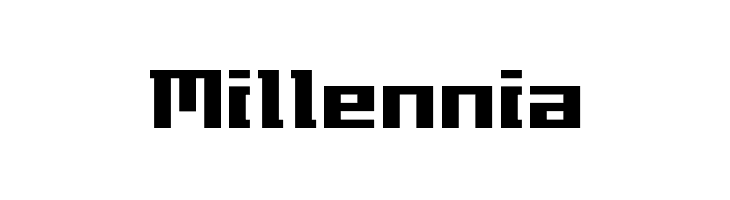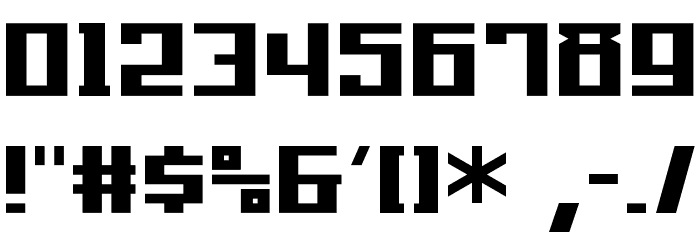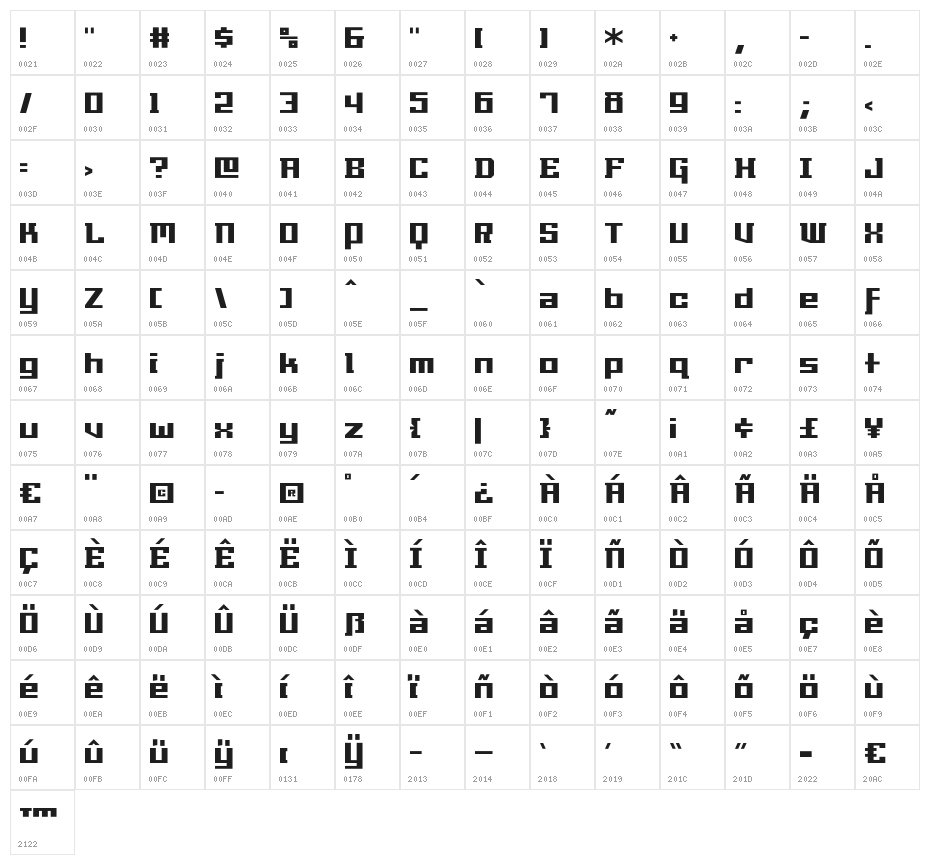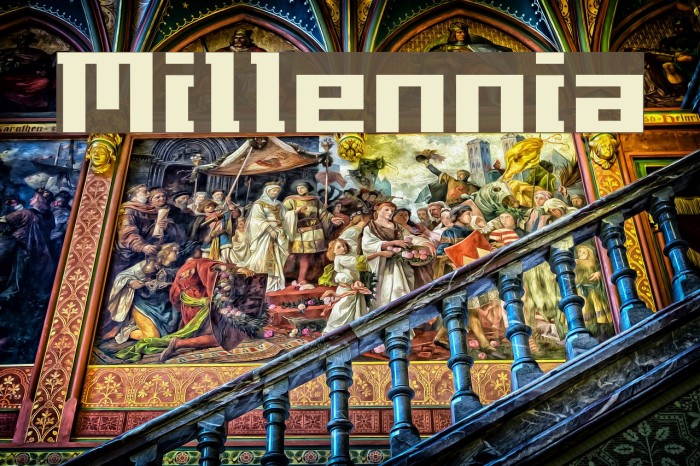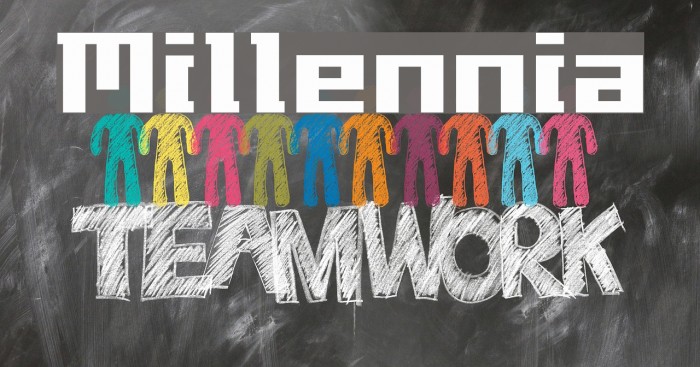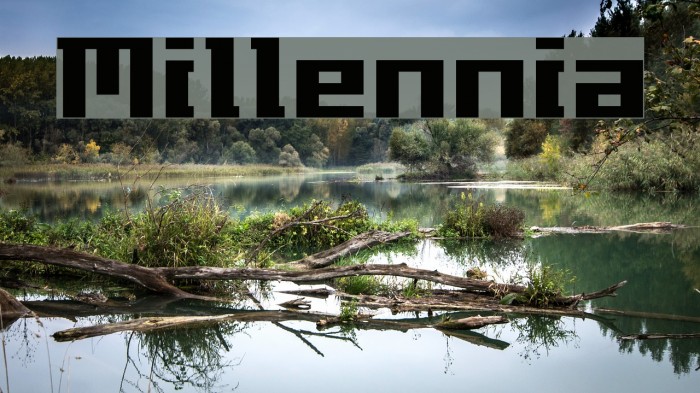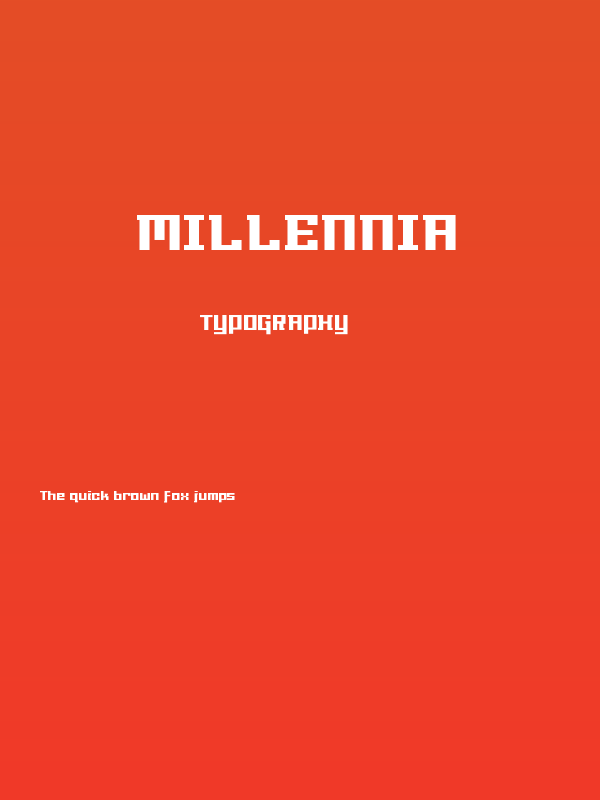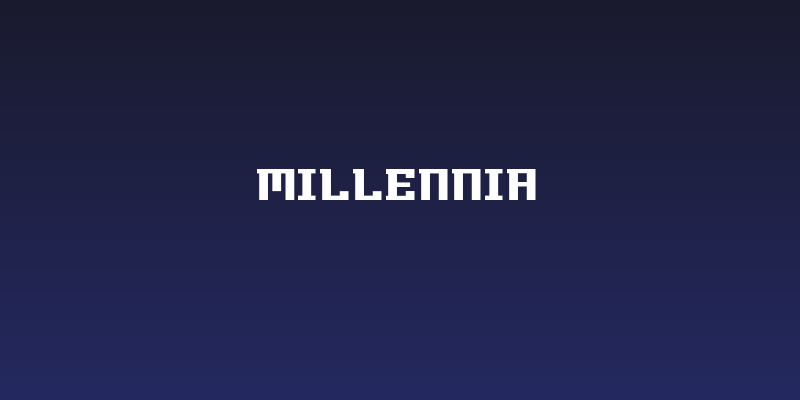
Millennia Font
Millennia Description
This font features a bold, geometric design with a strong presence. The characters are constructed with sharp, angular lines and a blocky appearance, giving it a futuristic and digital feel. The uppercase and lowercase letters maintain a consistent height, contributing to a uniform look. Numbers and special characters follow the same design principles, ensuring cohesion across all elements. The font's structure is reminiscent of early digital displays, making it ideal for projects that require a modern, tech-inspired aesthetic.
| Proposed Projects | Ideal for technology branding, video game titles, digital interfaces, and modern posters. |